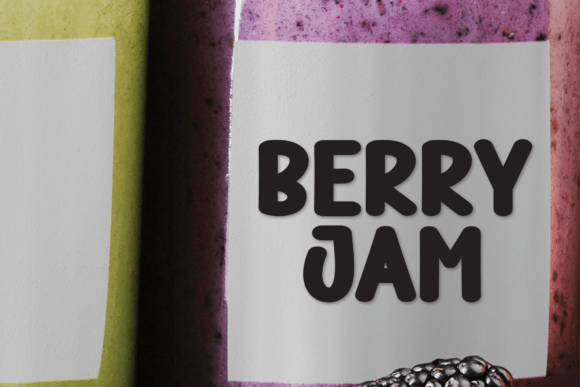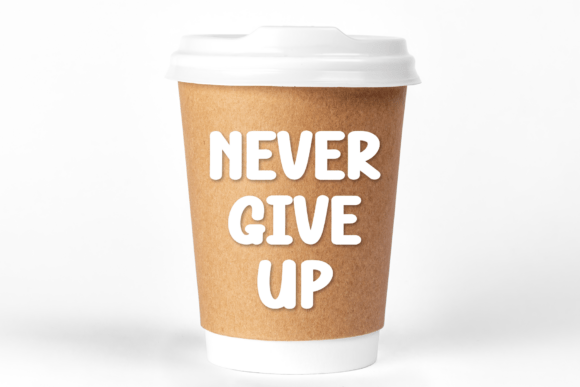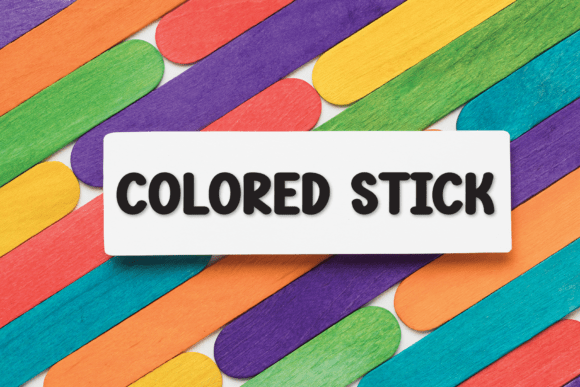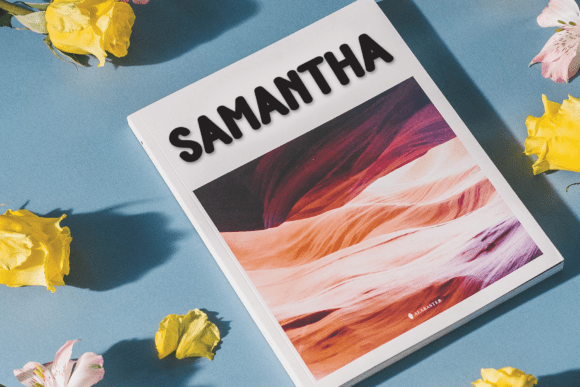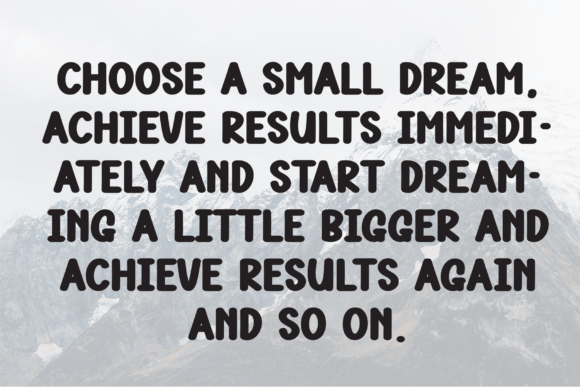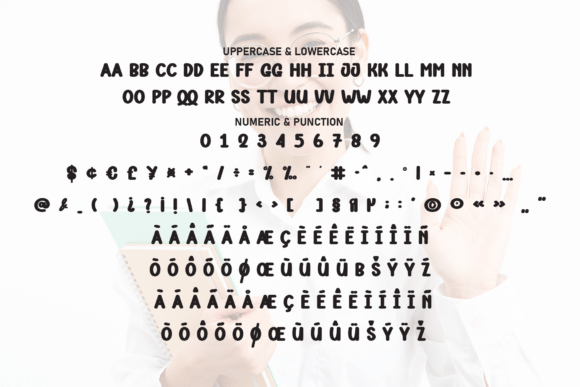
Introduction to Hello Teacher Font
Do you remember the thrill of creating handmade cards for your parents or teachers when you were a child? The excitement of choosing colorful markers, carefully crafting each letter, and watching your artwork come to life? For designers, that same sense of joy and creativity can be achieved with the right design resource. Enter the Hello Teacher Font, affectionately known as “Sweet and Friendly”, a delightful handwritten display font that brings a touch of whimsy and elegance to any project.
Infused with a playful spirit, this font is perfect for designers looking to add a fun and imaginative twist to their creative projects. Whether you’re crafting enchanting wedding invitations, designing delightful cards, or working on a high-quality design project, the Hello Teacher Font is a valuable resource that can bring your narratives to life and make your designs truly stand out.
Key Features of Hello Teacher Font
- Unique and playful design, perfect for creative projects and educational materials
- High-quality font with a transparent background, ideal for presentations, posters, and other design resources
- Available in 5 font styles, each with its own unique characteristics and usage
- Supports a wide range of languages, making it a versatile design resource for global projects
Honest Review: Hello Teacher Font
I recently had the chance to work with the Hello Teacher Font, and I must say it’s been a great experience. The font is a beautiful, high-quality design resource that can elevate any creative project.
- Beautiful, high-quality design resource
- Suitable for various creative projects
One limitation of the font is that it may not be suitable for all types of projects, especially those requiring a more formal or serious tone. The font’s playful and friendly vibe may not be the best fit for such projects.
Overall, I’m impressed with the Hello Teacher Font. It’s a great design resource for designers looking to add a touch of personality to their creative projects.
⚠️ Limitations: May not be suitable for formal or serious projects
Hello Teacher Font
Tips for Getting the Most Out of Hello Teacher Font
Use the Hello Teacher Font in creative ways, such as creating educational materials, designing lesson plans, or even making personalized gifts for teachers.
The Hello Teacher Font is commonly used for educational purposes, such as creating worksheets, quizzes, and other learning materials. It’s also perfect for creating personalized teacher gifts, like certificates and awards.